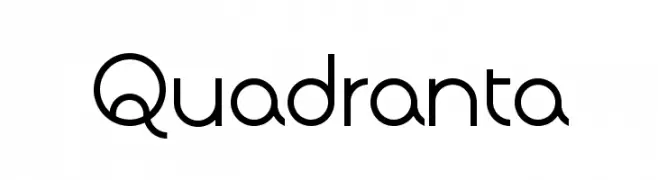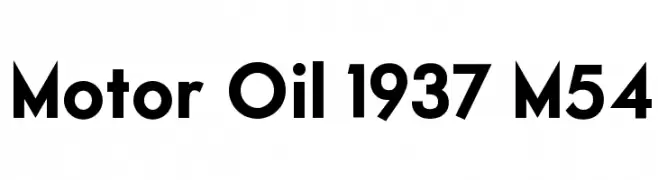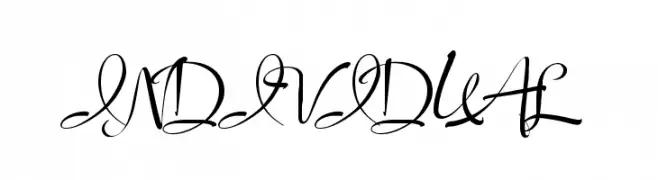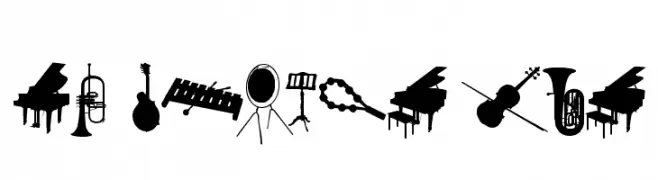
( Fonts by Darim Kim - www.aboutletters.com )
A modern, geometric sans-serif font with clean lines and uniform stroke width.
( Fonts by Mohammed Rahman )
A bold, geometric font with clean lines and a modern feel.
( Fonts by Mario Arturo - www.marioarturo.com )
An elegant and ornate script font with intricate loops and swirls.
( Fonts by Galdino Otten - galdinootten.com )
A bold, decorative symbol font with a scorpion motif.
( Fonts by Christophe Feray - www.wcfonts.com )
A decorative font featuring musical instrument and symbol silhouettes.
( Fonts by Jason Arthur - JibbaJabba Fonts - www.myspace.com/jasonarthurloaded )
A bold, italic font with a dynamic and modern style.